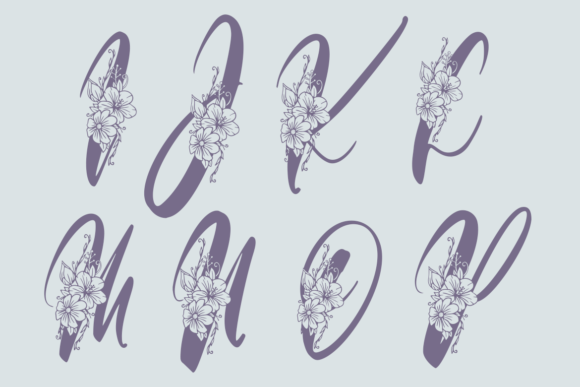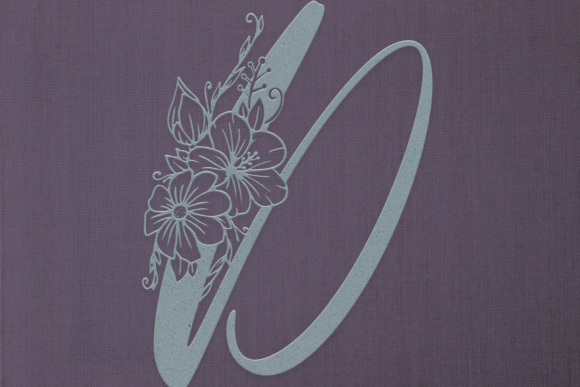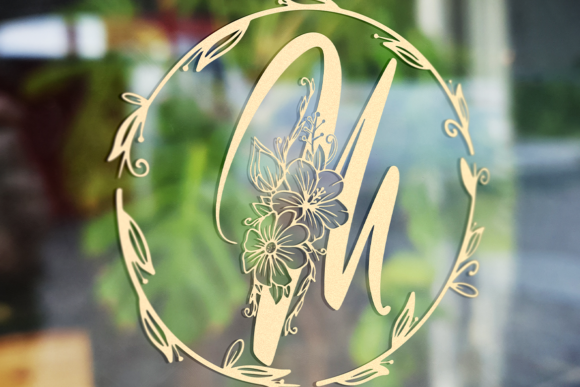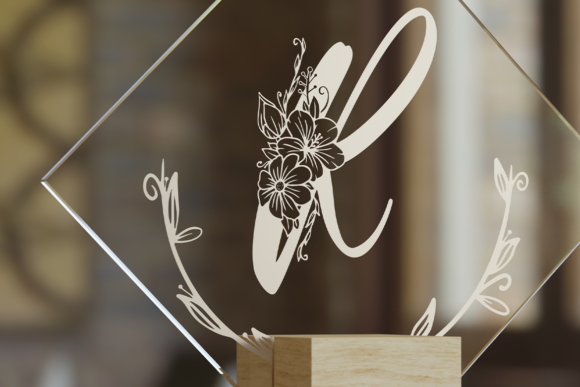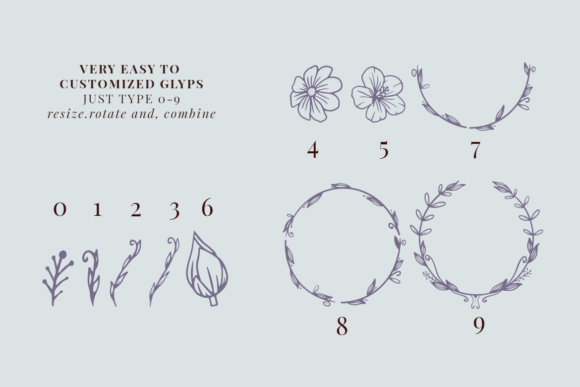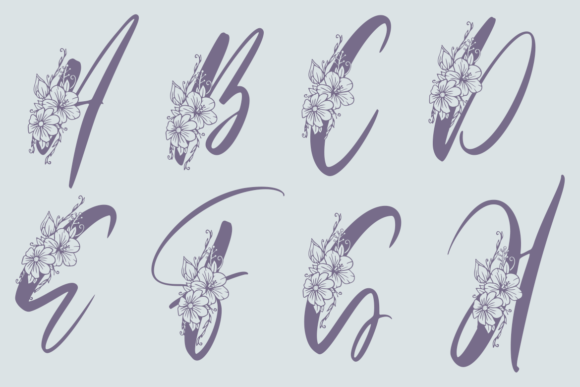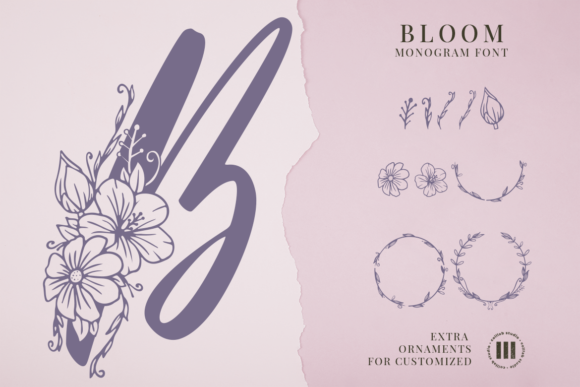
The Bloom Monogram Font: A Unique Decorative Font for Creative Projects
I’ll never forget the moment I stumbled upon the Bloom Monogram font while working on a wedding invitation project for a dear friend. I had been searching for the perfect font to give it that extra special touch, but everything I found seemed either too bland or too over-the-top. That’s when I saw Bloom Monogram, and it instantly caught my eye. Its unique, authentic feel had me hooked from the very first glance. In this article, I’ll share my love for this font, its features, and how you can use it to elevate your creative projects.
An Honest Review of Bloom Monogram
• ✨ Unique and authentic feel that adds a touch of elegance to any project
• ✅ Highly versatile and suitable for various design applications, from wedding invitations to social media posts
• 💕 Beautifully crafted monograms that make your designs stand out
• 🎨 Excellent for creating stunning stationery art and greeting cards
While Bloom Monogram is an amazing font, there are a few things to keep in mind:
• 🤔 Some users might find the font a bit challenging to pair with other fonts due to its distinctive style
• ⚠️ The font’s intricate details might not display as clearly at very small sizes
The Designer Inspiration Behind Bloom Monogram
Bloom Monogram was crafted with the intention of bringing a touch of elegance and sophistication to creative projects. Its designer aimed to create a font that would not only stand out but also evoke a sense of nostalgia and romance. The result is a beautifully unique font that can add a special touch to any design.
Q: What makes Bloom Monogram unique?
A: Bloom Monogram’s unique blend of elegance and playfulness, along with its beautifully crafted monograms, sets it apart from other fonts.
Q: Is Bloom Monogram difficult to pair with other fonts?
A: While Bloom Monogram has a distinctive style, it can be paired with other fonts. Experiment with different combinations to find the perfect match for your design.